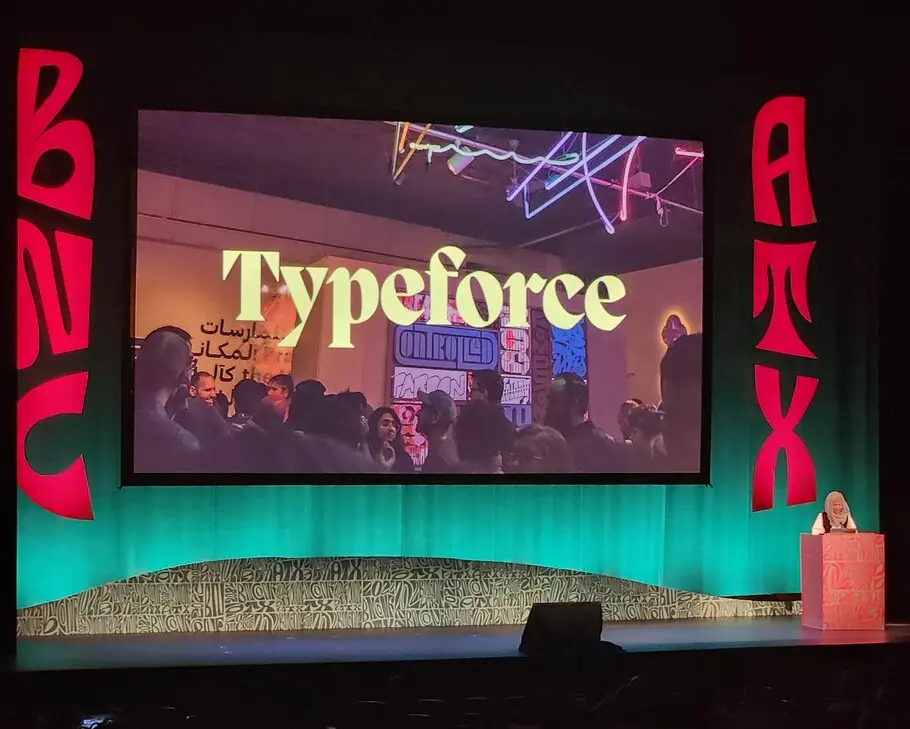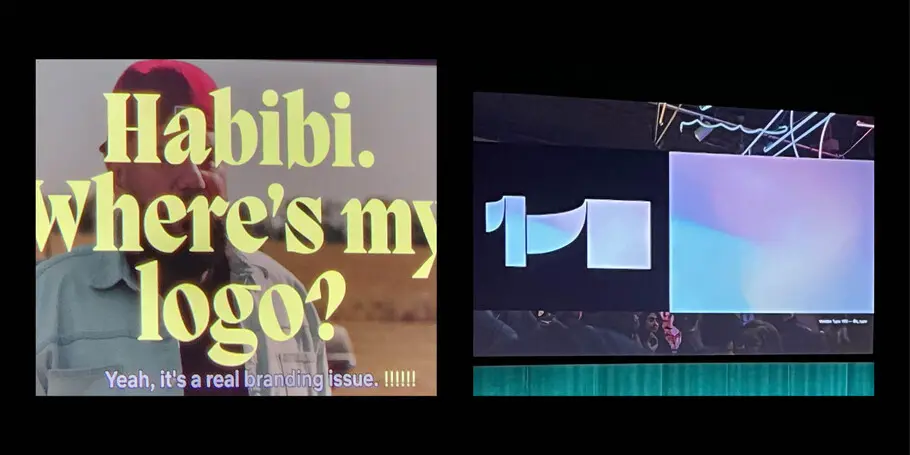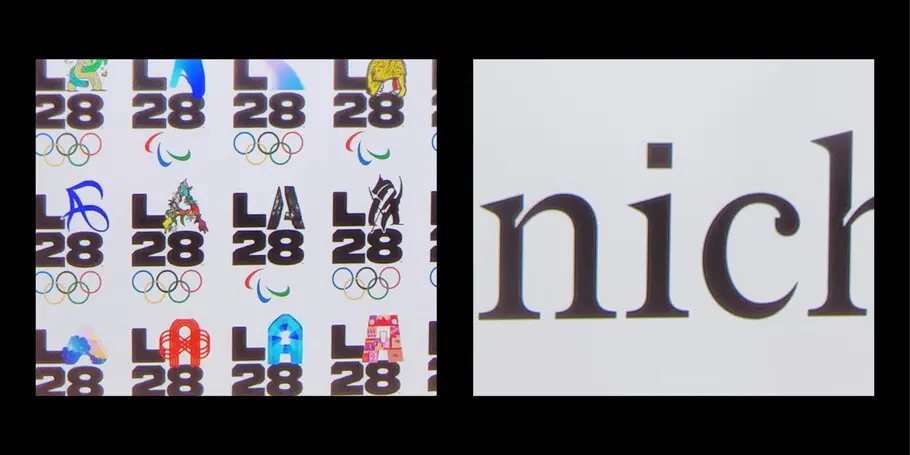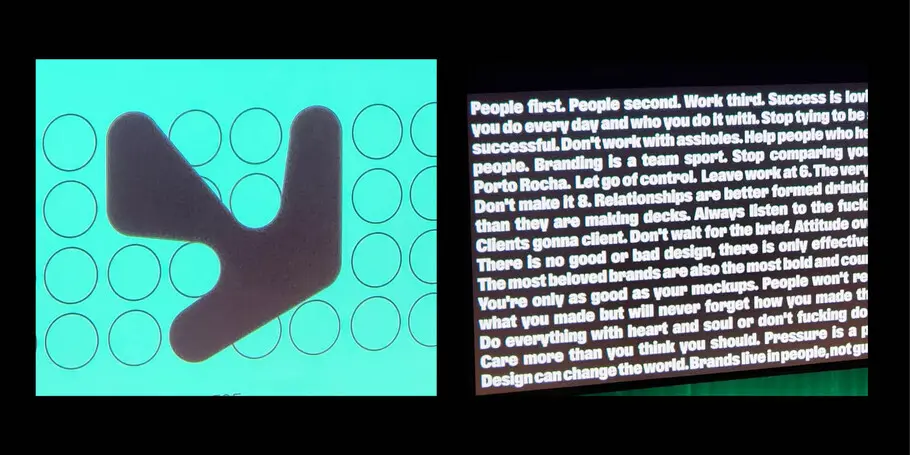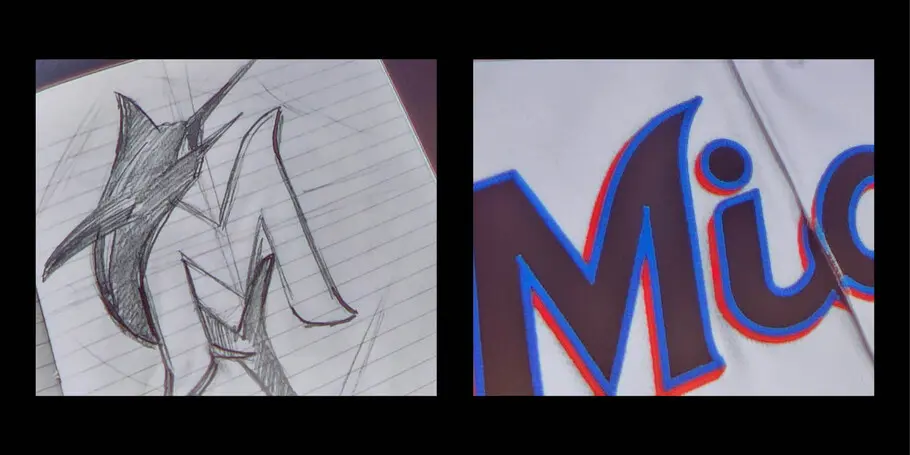
Five takeaways from Brand New Conference.
This year, like many of you, we were excited to be back at the Brand New Conference hosted by our hardworking friends at UnderConsideration LLC. It felt good to reunite in person for a 2-day meetup of some of the most influential voices in design and branding, and witness captivating presentations, marvelous work, and of course some terrific type. Read on for some threads we picked up on during the first day.
1. Branding experts gonna brand, and rebrand.
A pattern we picked up on in many talks on Day 1 was the concept of living, breathing identities that are meant to be reimagined, refreshed, and even crowdsourced – almost continuously.
Nermin Moufti, creative director, strategist and co-founder of Field of Practice, showed off the evolution of the identity for Typeforce, a showcase of type-based art from Chicago + beyond which she co-chairs. The identity is reimagined with each event.
Nermin Moufti.
Felipe Rocha, Founder and Creative Director of PORTO ROCHA, had a similar perspective on his agency’s design for Nike’s Be True campaign.
Felipe Rocha.
2. Be bold.
Another through line we observed was an emphasis on big, bold brands. Whether pushing the edge with experimental type, cheeky messaging, or scrappy TikToks, many spoke about the importance of having attitude and taking risks.
This sentiment was present throughout Alex Center’s presentation and in all the work he showed off. A Brooklyn-based designer and founder of the award-winning branding company, CENTER, their identity work for Chassie, a Bronx-based furniture company, stands out amongst other furniture brands with wild type that’s a sturdy example of “organic mod” style called out in our 2022 trends report (Siri, play Aphex Twin).
“The most beloved brands are the most bold and courageous.”– Alex Center
Nadya Okamoto, the 24-year-old Co-Founder of August, a lifestyle period brand working to reimagine periods to be powerful, makes upwards of 50 TikToks a day iterating based on their performance.
Nadya Okamoto.
3. Great work comes from happy people.
It was encouraging to hear multiple founders truly prioritizing work-life balance in an industry that’s often characterized by long hours and a tendency to sweep “self-care” aside in favor of winning pitches or perfecting the work.
Alex Center read off a manifesto to a cheering audience including a passaged that said, “People first, people second, work third… Leave work at 6. the very latest 7. Don’t make it 8.”
When Nadya Okamoto was asked how she manages her own company, speaking engagements, having energy to ideate and so much more, the recent Harvard grad answered, “I sleep 10 hours a night.”
Finally, PORTO ROCHA gave us a sneak peek into Design Threads, a research report that looks at the design industry as a whole and asks tough questions, including those about work-life balance and burnout. In order to get the report done they shut down commercial work for a week in order to focus on the research. When they asked participants which emoji would represent 2022, majority said the face melting emoji in part because of the overwhelming state of what it means to be a designer right now.
PORTO ROCHA’s Design Threads.
4. Be inclusive – not performative.
It’s 2022 calling, do you know where your DE&I initiative is? In recent years we’ve watched brands aim to get more inclusive, some jumping on the PRIDE bandwagons for a few weeks, while others are slowing down to reflect and enact real change.
PORTO ROCHA, founded by two queer Latinos, presented 5 key goals they’re working towards, many of which focused on inclusivity and representation in design.
We want designers to have a seat at the table.
We want to connect brands with people and culture in meaningful ways.
We want to find our sweet spot of:
- Design & culture and business & strategy
- Craft and scale
- High-quality and accessibility
- Iconic and utilitarian
- We will always be a design led company. Not a business that happens to sell design.
- We want to prove that queer and Latino immigrants can run a global design agency in NY.
Maureen Raisch, a CLIO award-winning brand designer and illustrator with a focus in the pro sports industry. She currently works on the brand experience team for the National Football League and recently came out as trans. During her presentation showed off her work for the NFL’s presence at the 2022 NYC Pride parade and shared insight into what it was like to transition while at the NFL (she was greeted with smiles).
5. It all starts with type.
We’re biased, but we were thrilled to see so many projects, identities and campaigns that started with hand lettering, sketches, inspiration from street signs, and so on. Keep an eye out for a post covering all things type @ Brand New Conference soon.